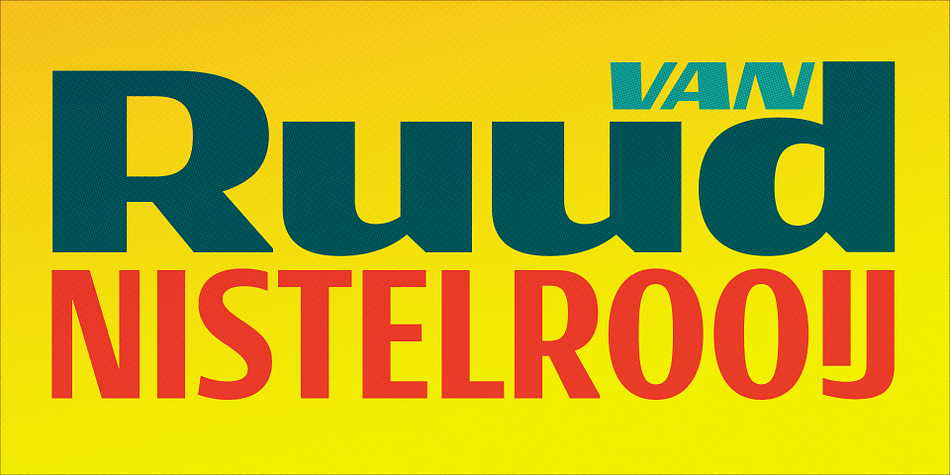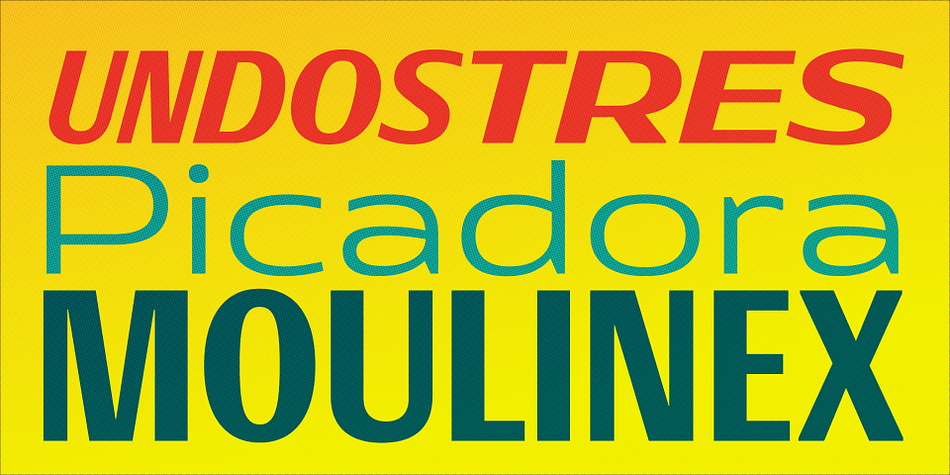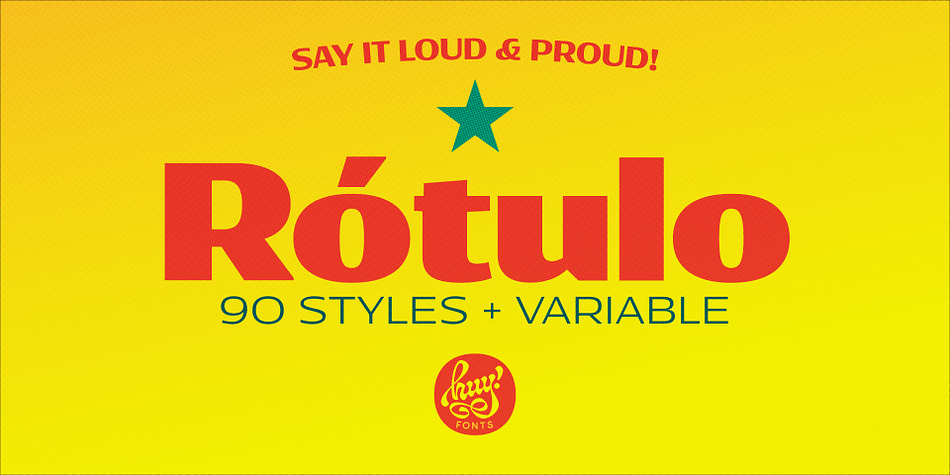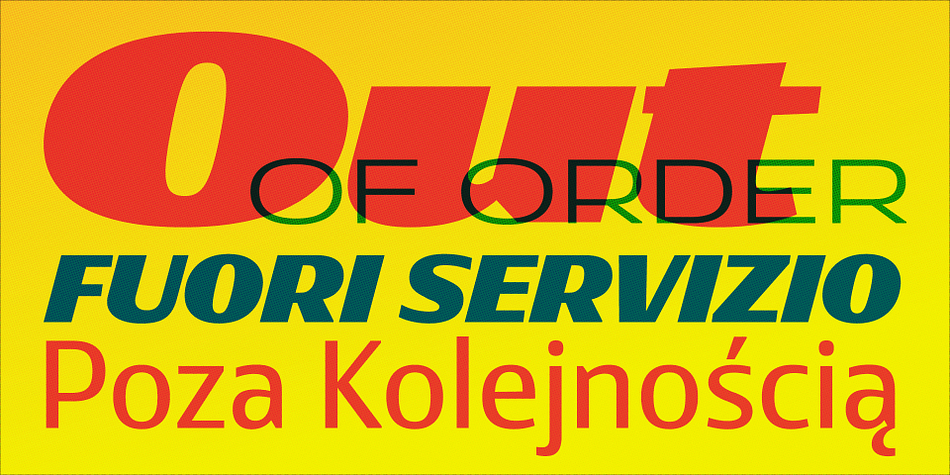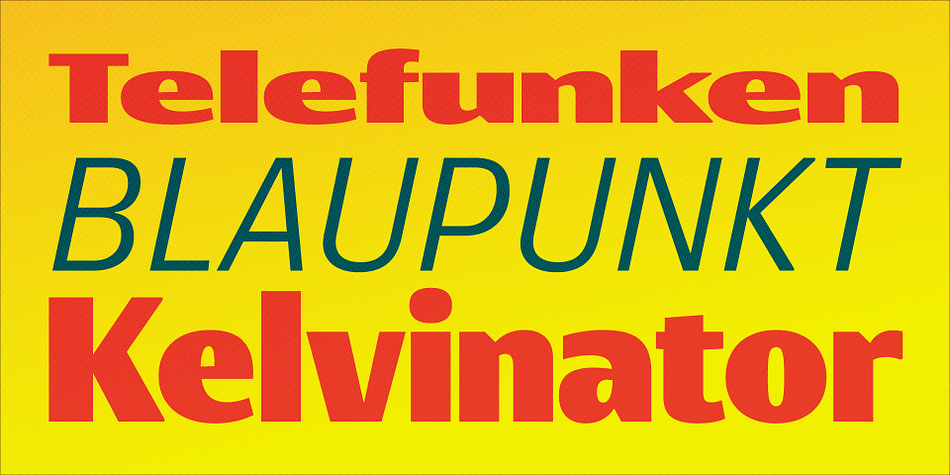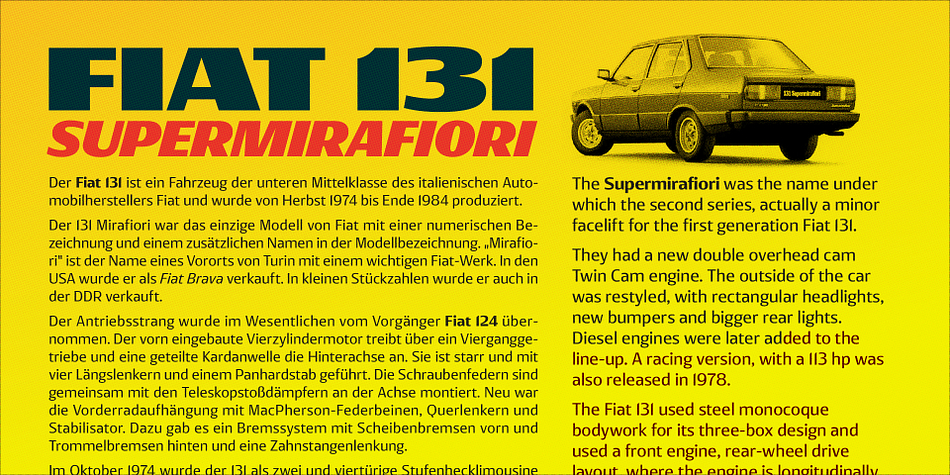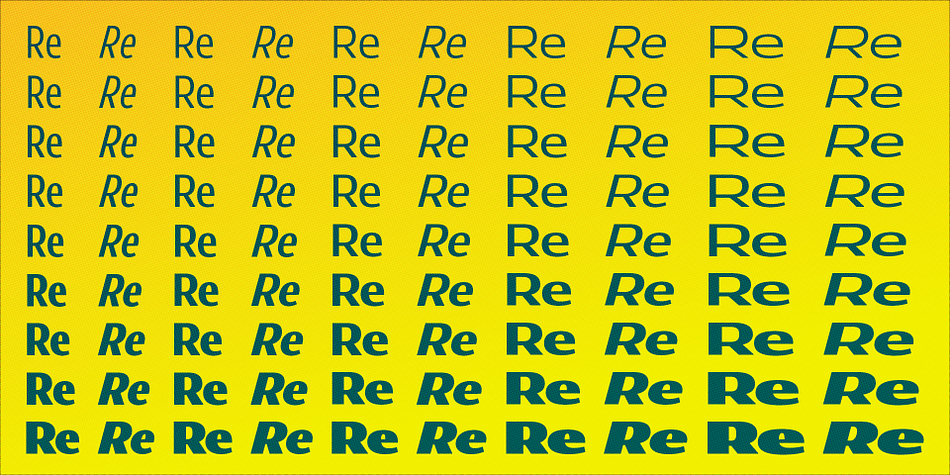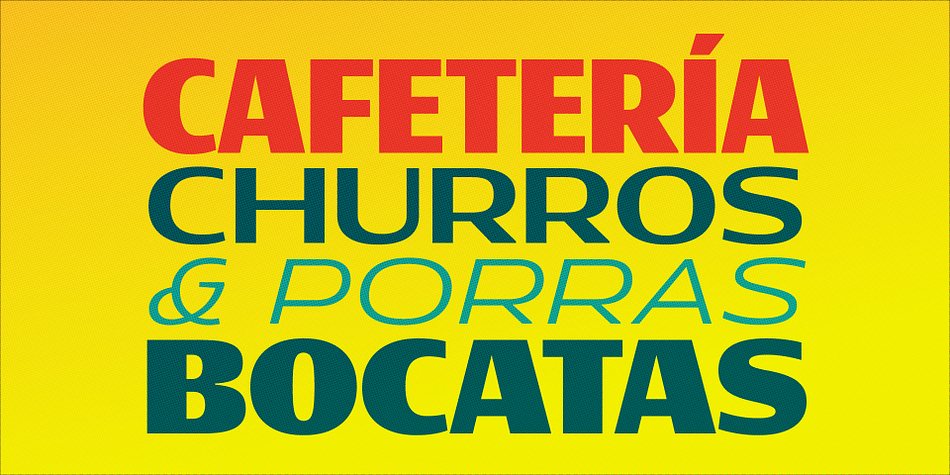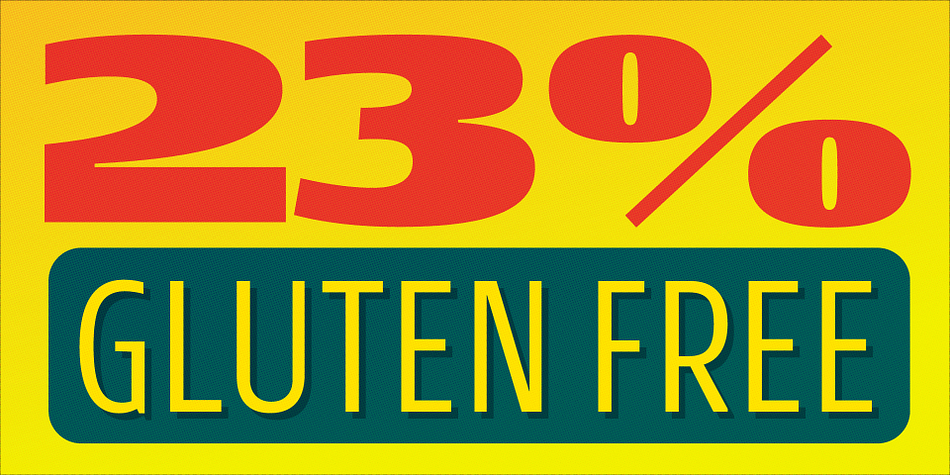
Rotulo
Designed by Juanjo López, Rotulo is a sans serif font family. This typeface has ninety styles and was published by Huy!Fonts.
Rotulo is a contrasted sans family which combines the Thick & Thin signpainter’s style and some 70s feeling in a huge font family with 90 styles.
A visit to an exhibition of Spanish movie posters by Jano was the beginning of Rótulo (Spanish for Sign) project. Classic thick & thin signpainter style was featured in many letterings of those posters, as it was a very common style in 60s and 70s Spanish design. Unfortunately, today very few Contrasted Sans are seen, something that was quite common years ago has fallen into disuse in favor of Helvetic monotony.
Rótulo recapture all that personality, with an extense range of weights and widths to be used in striking headlines and short texts.